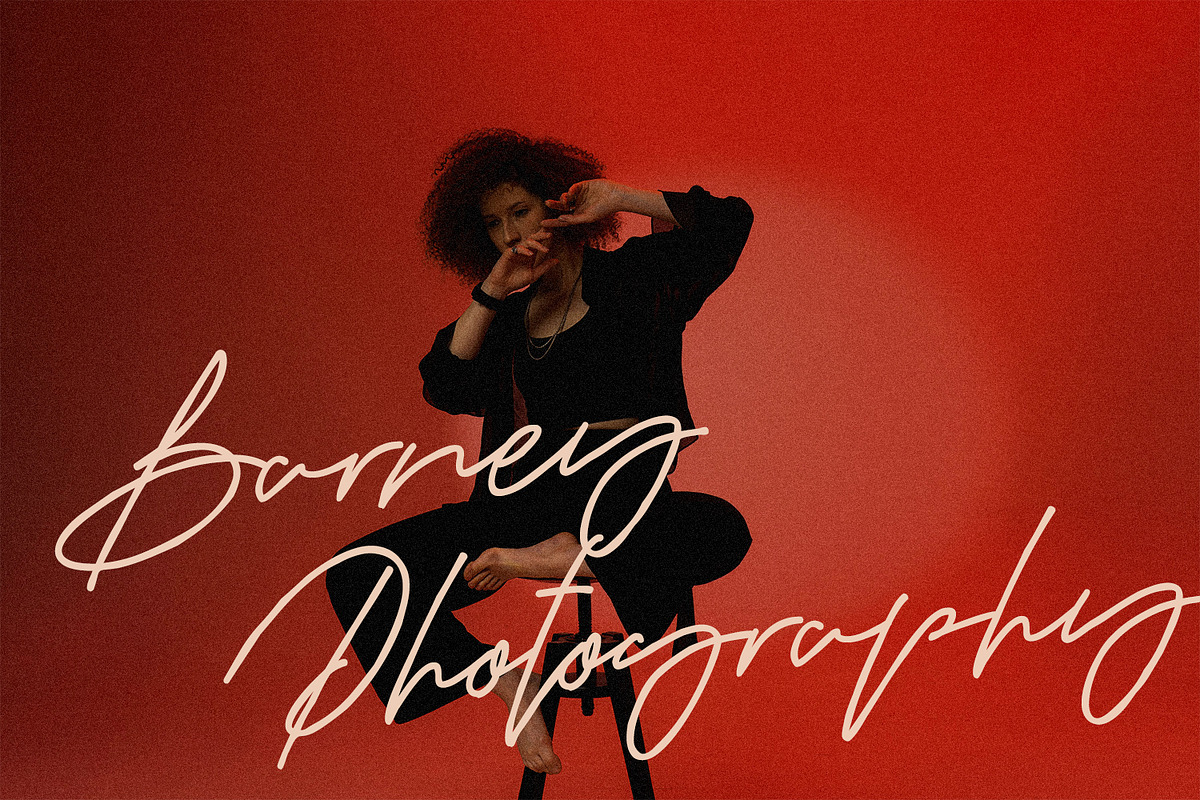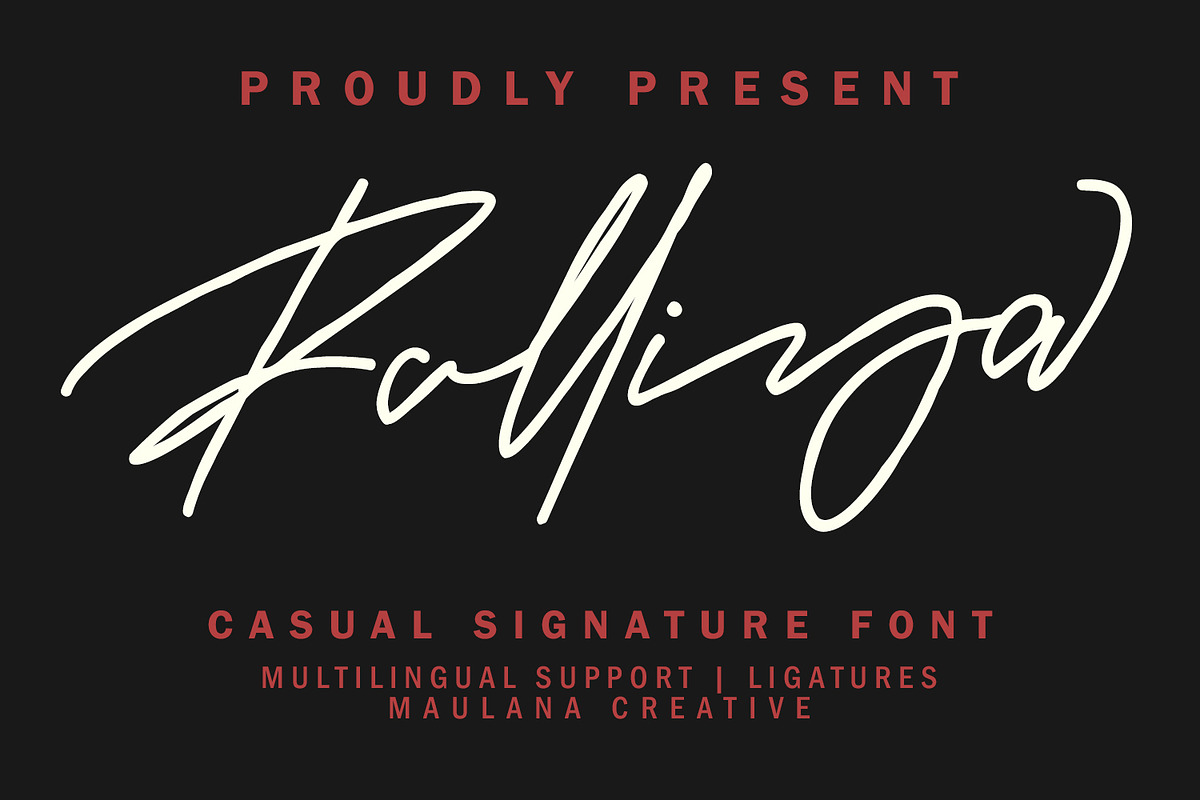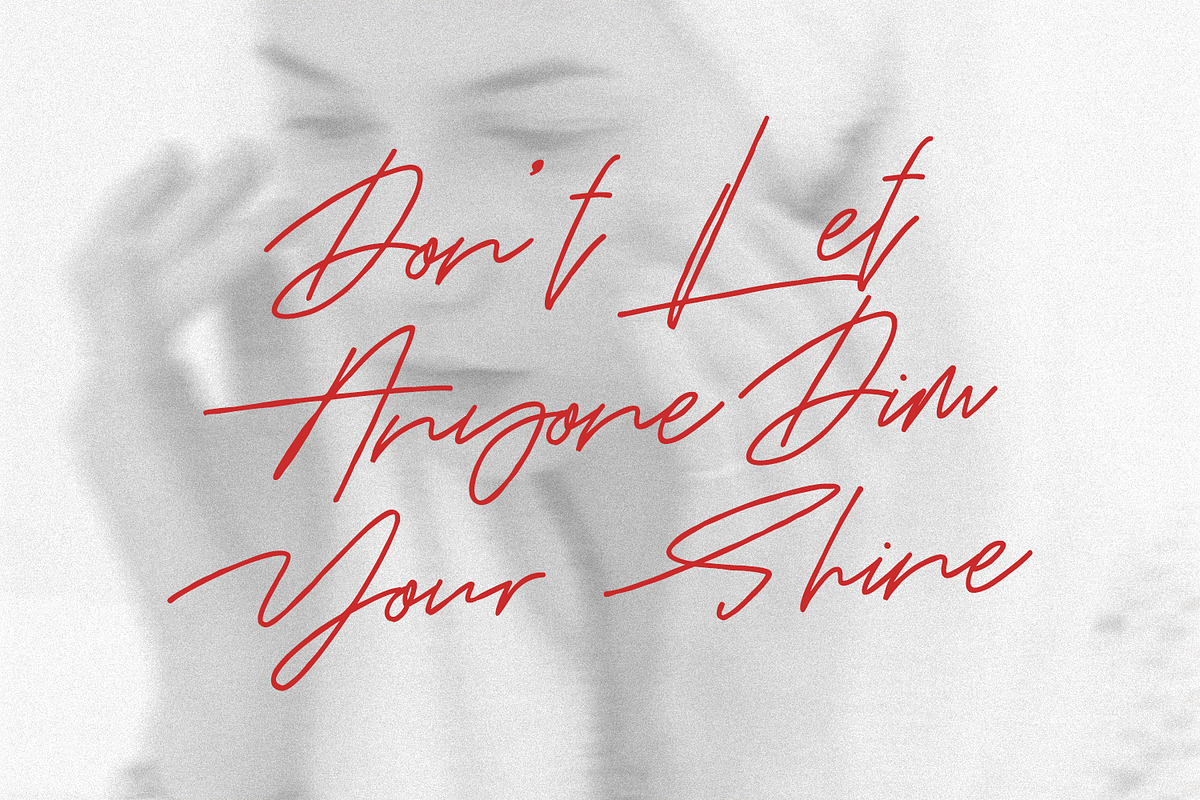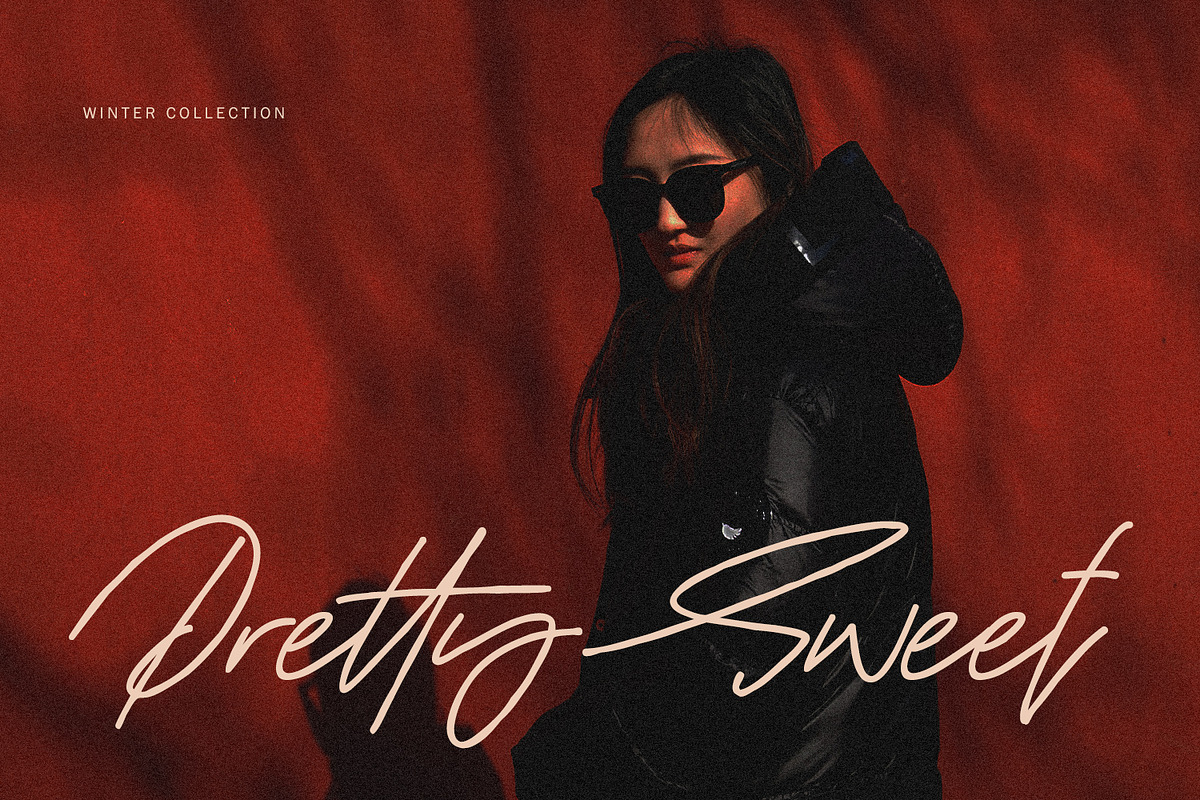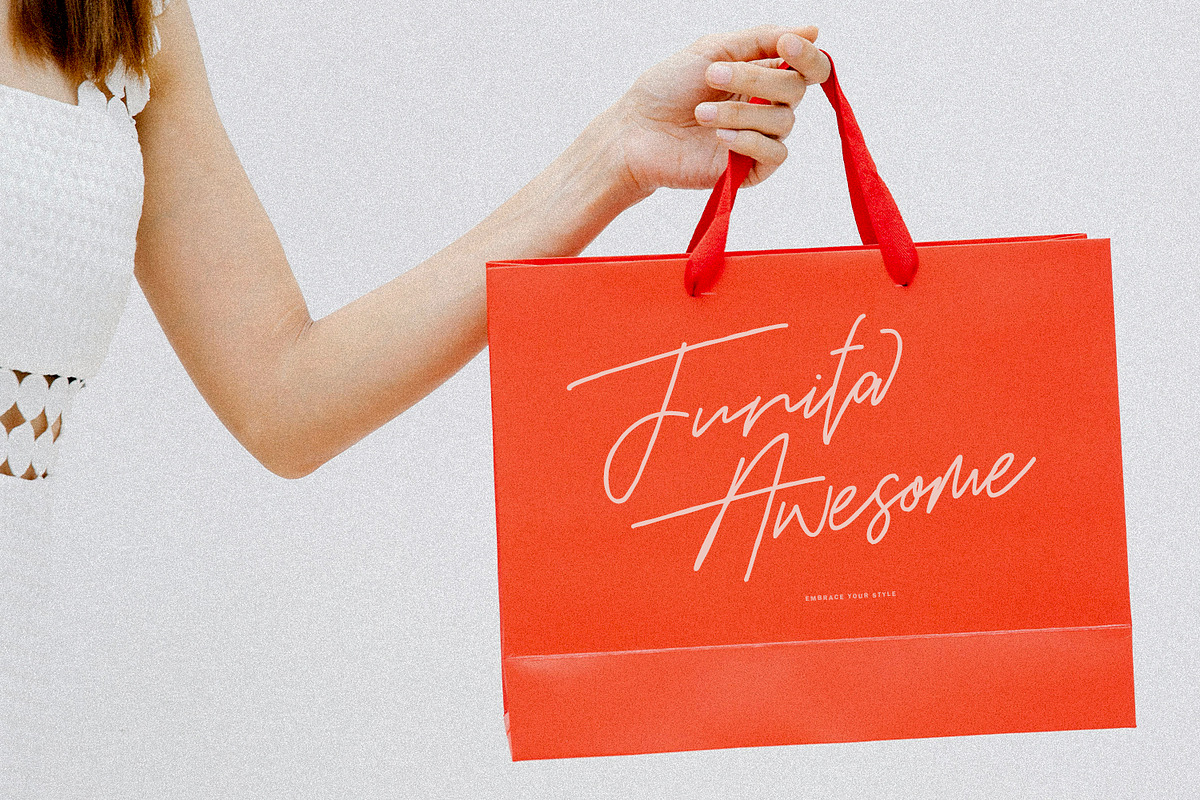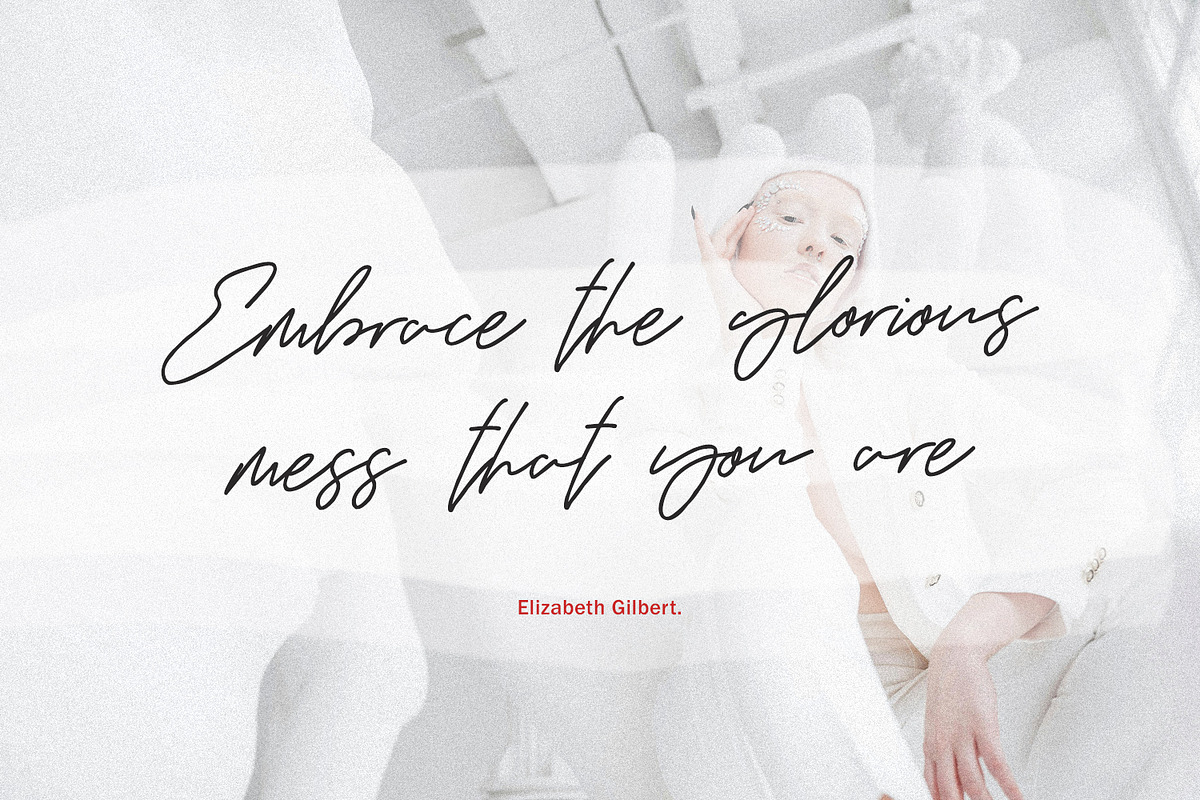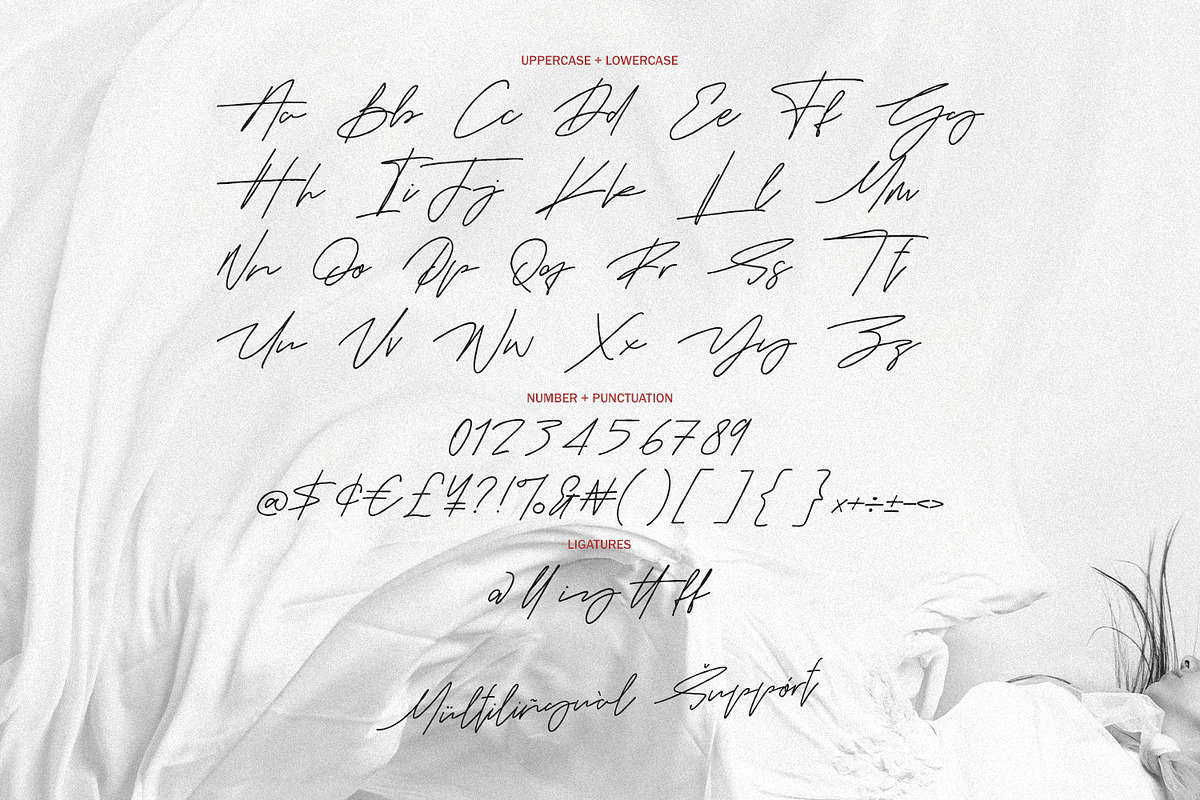
Ralliya Casual Signature Font
Ralliya casual signature script handmade font. Fun character with a bit of ligature and alternate. To give you an extra creative work. Ralliya font is good for logo design, Social media, Movie Titles, Books Titles, a short text even a long text letter and good for your secondary text font with script or serif. Make a stunning work with Ralliya font.